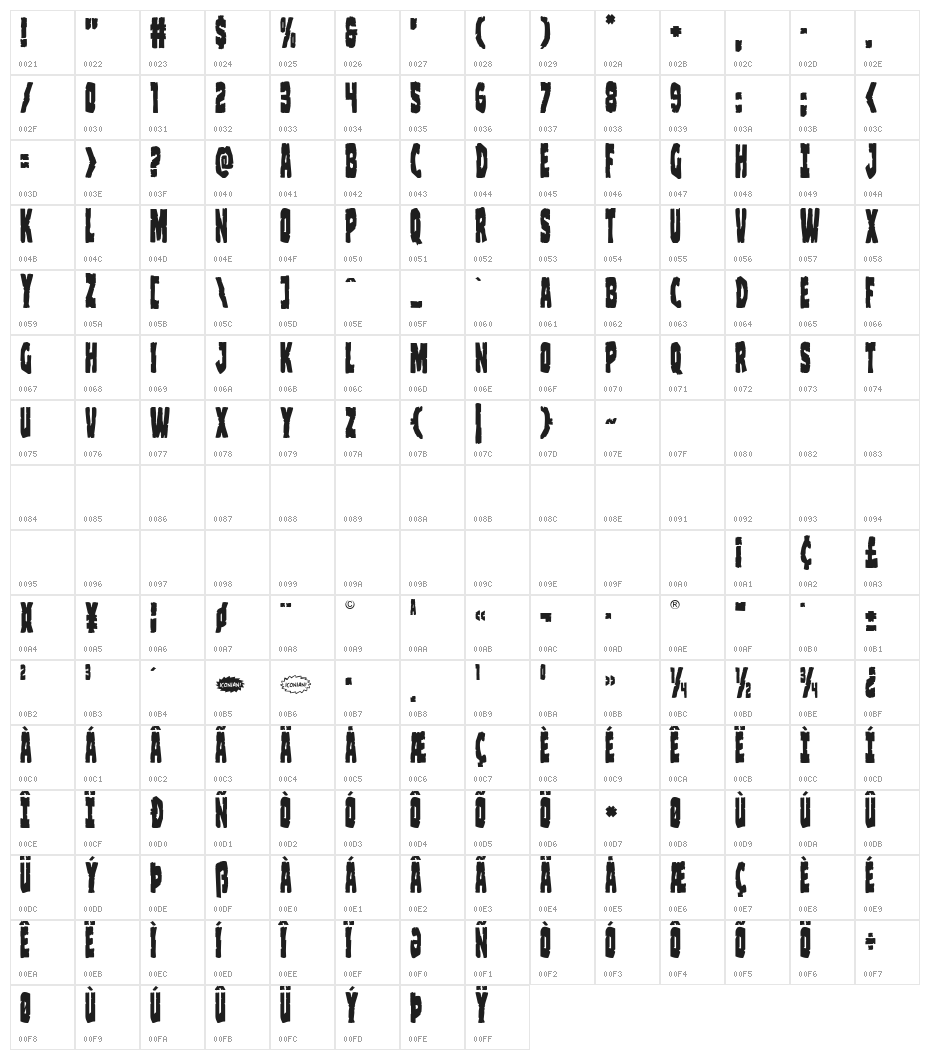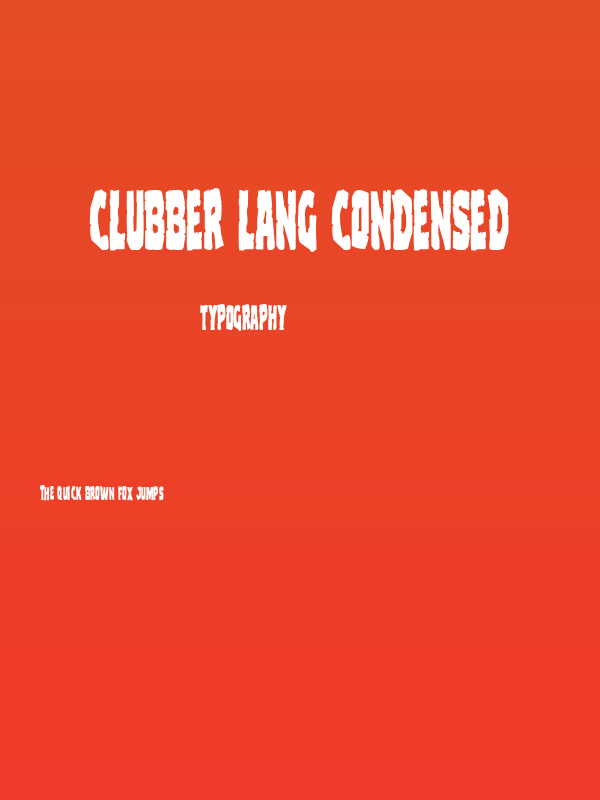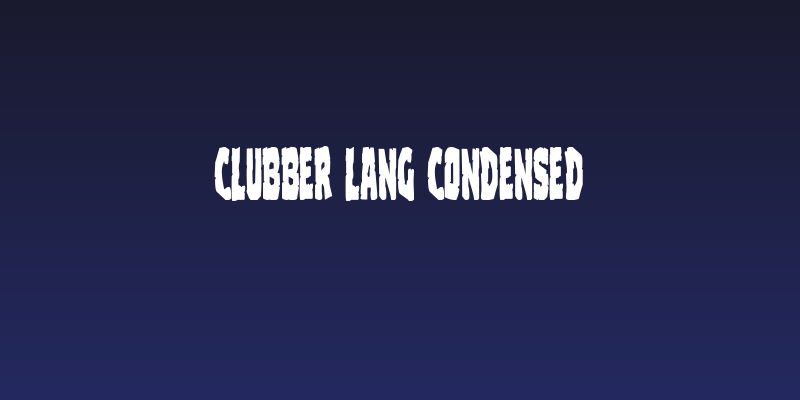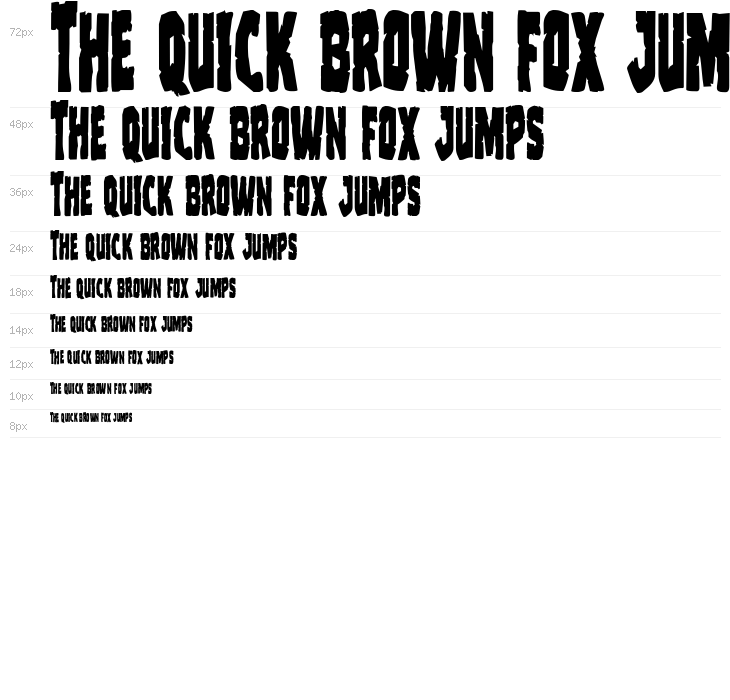
Clubber Lang Condensed Font
Clubber Lang Condensed Description
This font features a bold and rugged style with a condensed structure, giving it a powerful and impactful appearance. The characters are heavily stylized with rough edges and a distressed look, making it ideal for designs that require a strong visual presence. The uppercase and lowercase letters maintain a consistent height, contributing to its uniformity. The numbers and special characters follow the same bold and textured design, ensuring cohesion across all elements. This font is perfect for projects that aim to convey strength and intensity.
| Proposed Projects | Ideal for posters, album covers, sports branding, and any design needing a strong, impactful look. |